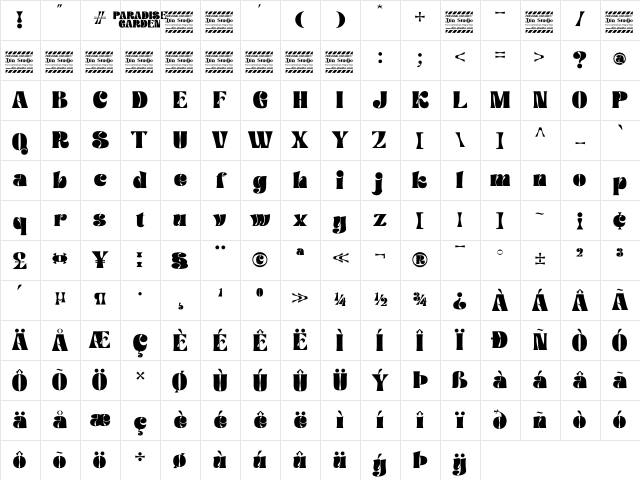
Complete Paradise Garden Personal Use Regular glyph index. Displaying only characters natively supported by Paradise Garden Personal Use Regular font.
Paradise Garden Personal Use is a composed and adaptable typeface that performs quietly and consistently across a wide range of design contexts.